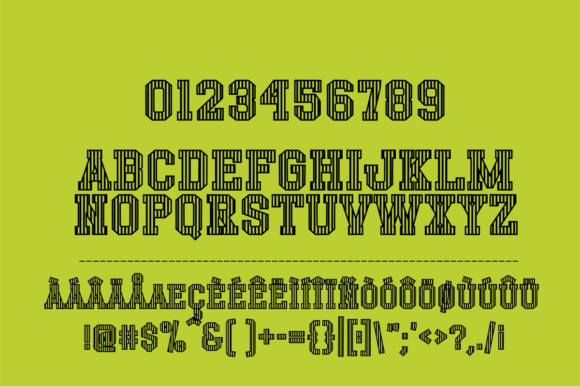
Introduction to Offsides Font
Have you ever stared at a blank design canvas, searching for the perfect font to bring your creative vision to life? As designers, we’ve all been there – the moment when the right typography can make or break a project. For those seeking a bold and eye-catching font, the wait is over. Meet the Offsides Font, a game-changing design resource that’s set to elevate your creative projects to the next level.
With its sleek, geometric structure and clean lines, the Offsides Font is the perfect choice for designers looking to add a high-quality, modern touch to their work. Whether you’re working on a poster, logo, or headline, this versatile font is sure to grab attention and leave a lasting impression. And the best part? The Offsides Font is available for free download, making it an accessible design resource for creatives of all levels.
- Unique characteristics: bold, modern, and elegant design, perfect for headings and titles
Honest Review: Offsides Font
I recently had the opportunity to work with the Offsides Font, and I must say it’s been a game-changer for my creative projects. This high-quality font is perfect for any design resource that requires a clean and modern look.
Here are some of the key features that make the Offsides Font stand out:
- ✨ Highly customizable: The font is available in various weights and styles, making it easy to adapt to any design project.
- ✨ Modern aesthetic: The Offsides Font has a sleek and contemporary look that’s perfect for creative projects.
- ⚠️ Limited language support: The Offsides Font may not support certain languages or character sets, which could be a problem for designers working on international projects.
- ⚠️ Not ideal for complex typography: While the font is great for simple designs, it may not be the best choice for complex typography or multi-line text.
Overall, I’m really impressed with the Offsides Font and would highly recommend it to any designer looking for a high-quality, free download font for their creative project.
The Offsides Font is a high-quality design resource perfect for creative projects. With a transparent background, this font is ideal for various applications.
For optimal results, use the Offsides Font in conjunction with a high-quality design background. Common use cases include logos, brochures, and social media graphics.
To get the most out of the Offsides Font, experiment with different font sizes and combinations. This will help you achieve a unique and visually appealing design for your project.
Playfair Display compares to Offsides Font in its luxurious feel, but it’s more ornate and less handwritten. It’s ideal for invitations, wedding designs, or any project that requires a touch of sophistication.